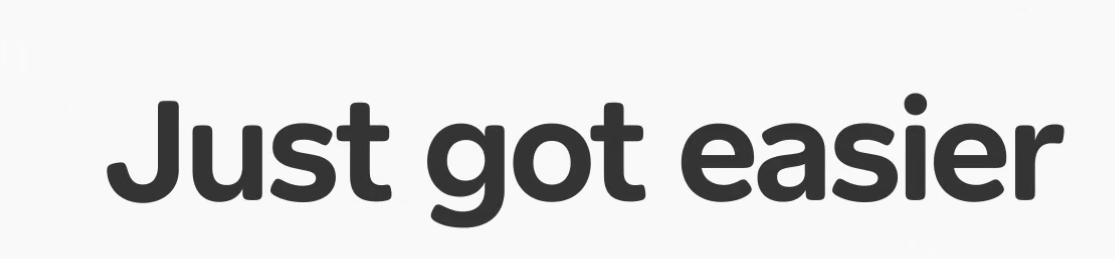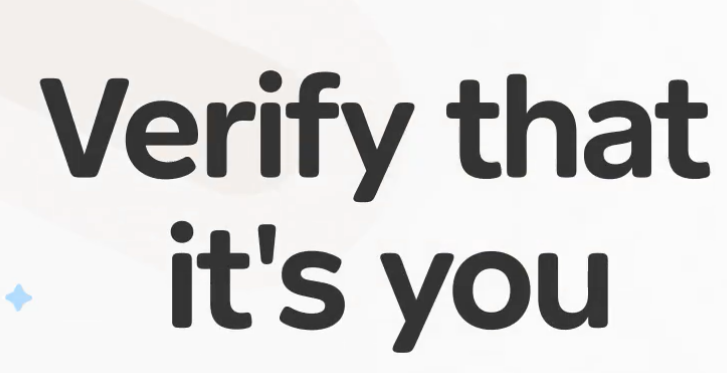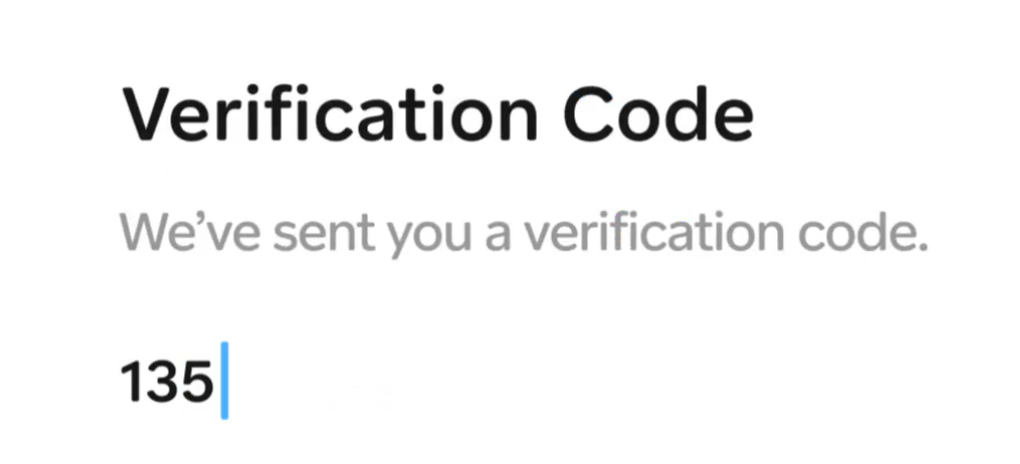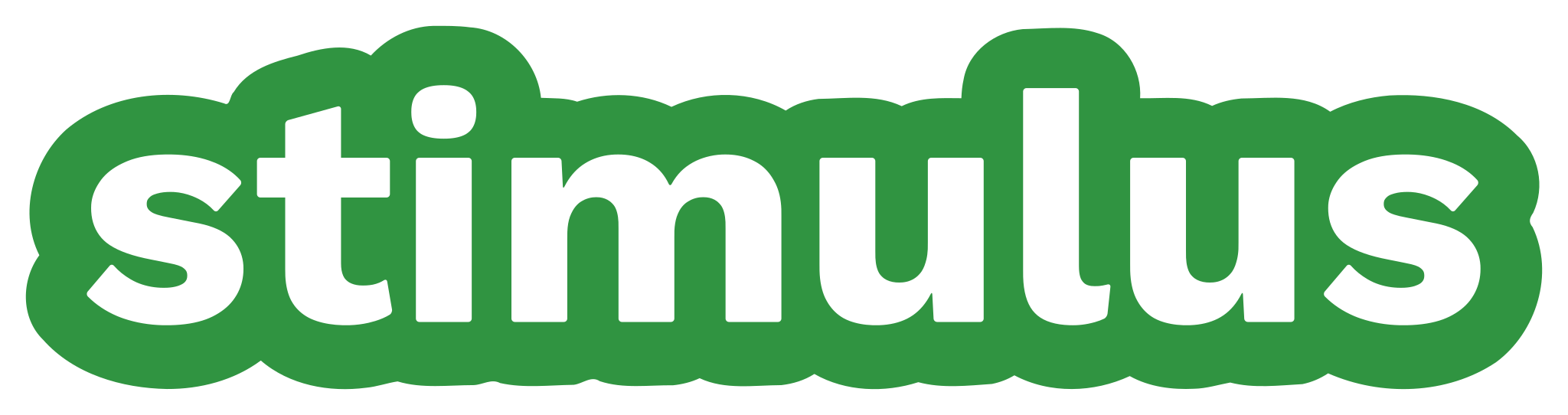
What is this round font from a crypto ios app? I am looking for round fonts.
I am a fan of round fonts, which is why this ad caught my attention:
I am also interested in finding out the font of the image in the tweet:
I am not sure where the sticker came from, but I feel like I've seen this font before in a Nintendo product or graphic.
In addition to identifying the fonts above, I would like to know if there are any other fonts which has a similar vibe as those fonts.
Please, give us image of the font from that video directly, I'm not inclined to watch any external link to crypto 😇. That said the 'stimulus' seems to be Work Sans.
How is it Work Sans? Work Sans does not seem to have a round version. If you look at the picture, the font has a subtle roundness.
The keyword is “subtle”: it could simply be an artefact of printing, or an effect applied by the graphic designer.
As for other subtly rounded typefaces, the first two that comes to my mind are Asap and Calibri. You can also look for keywords like “soft” in sites like MyFonts.
As Riccardo said it is designed to be rounded. You can apply "rounded corners" effect on the text in Adobe Illustrator, Inkscape or similar software to achieve this. Like this: